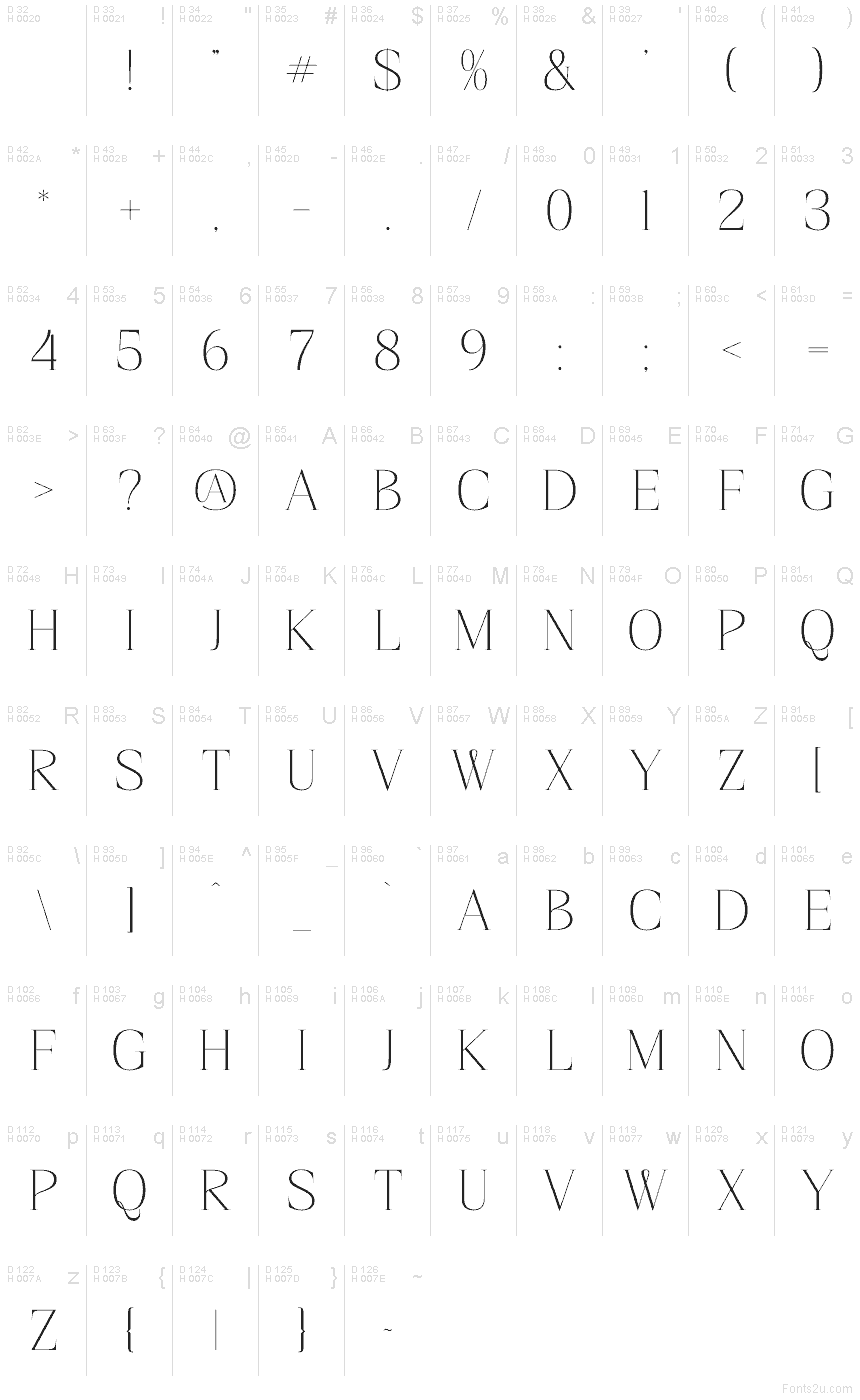
Magisse font by Storytype Studio is a free serif typeface with razor-fine hairlines, tall proportions, and crisp, knife-edge serifs. It looks like ink drawn with a steel nib-elegant, airy, and confident-giving titles a poised, luxurious snap without feeling fussy.
Using Magisse, headlines gain a cool, editorial shimmer that suits fashion campaigns, beauty branding, perfume packaging, magazine mastheads, invitations, and refined social posts. This free font thrives at large sizes where its slender strokes breathe; add a touch of tracking for extra polish. For body copy, pair it with a quiet, neutral sans to keep the spotlight on Magisse’s graceful silhouette.